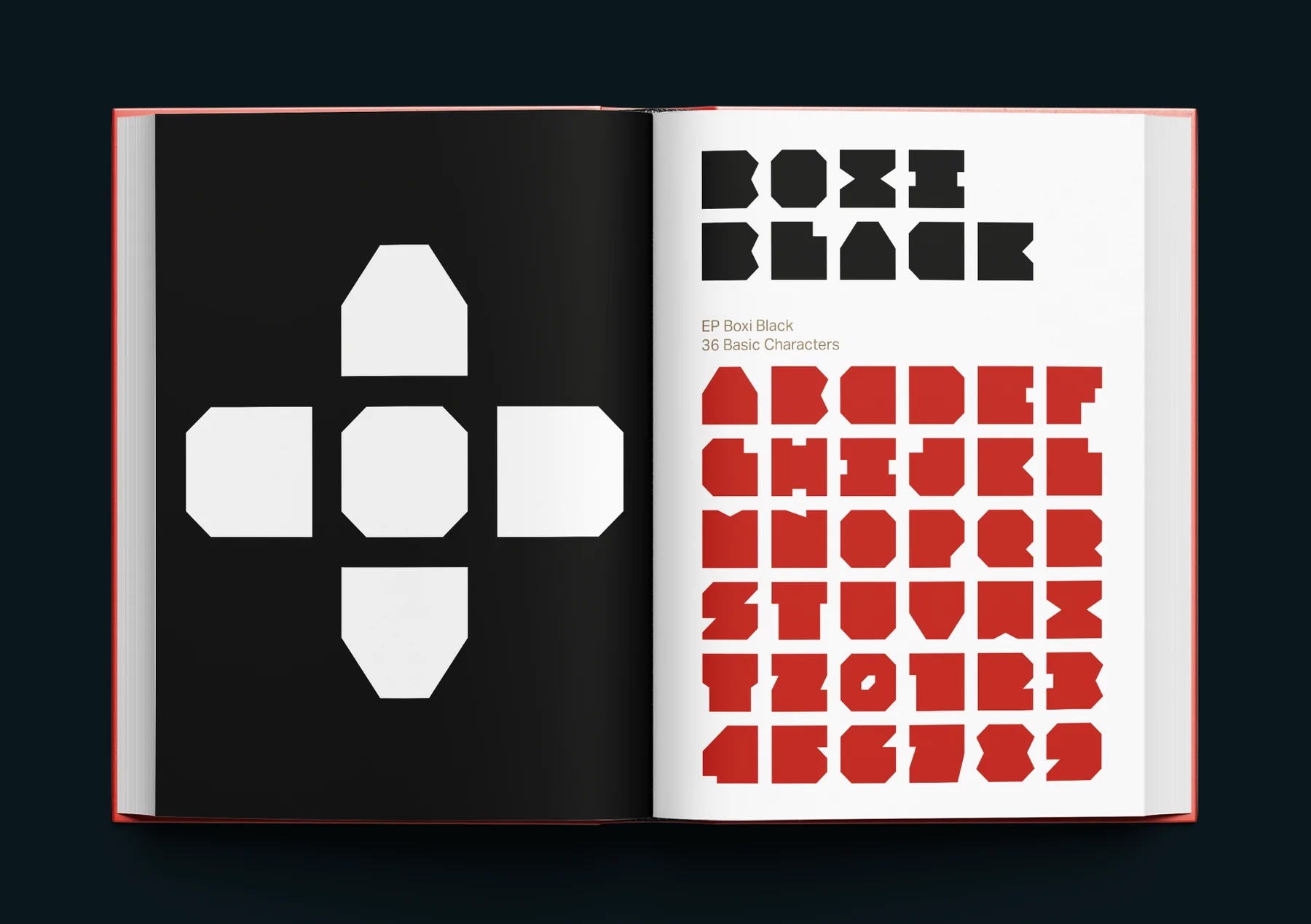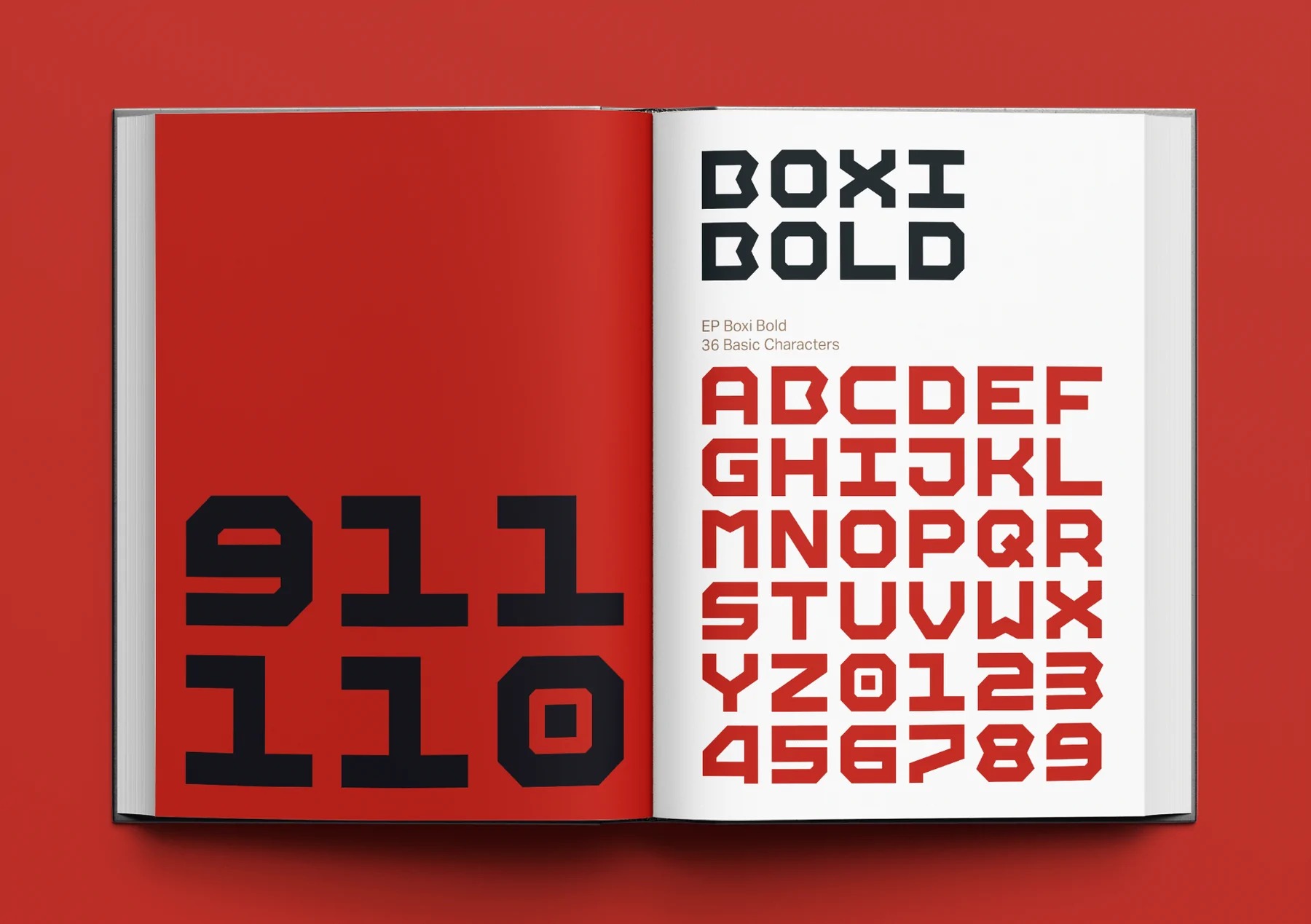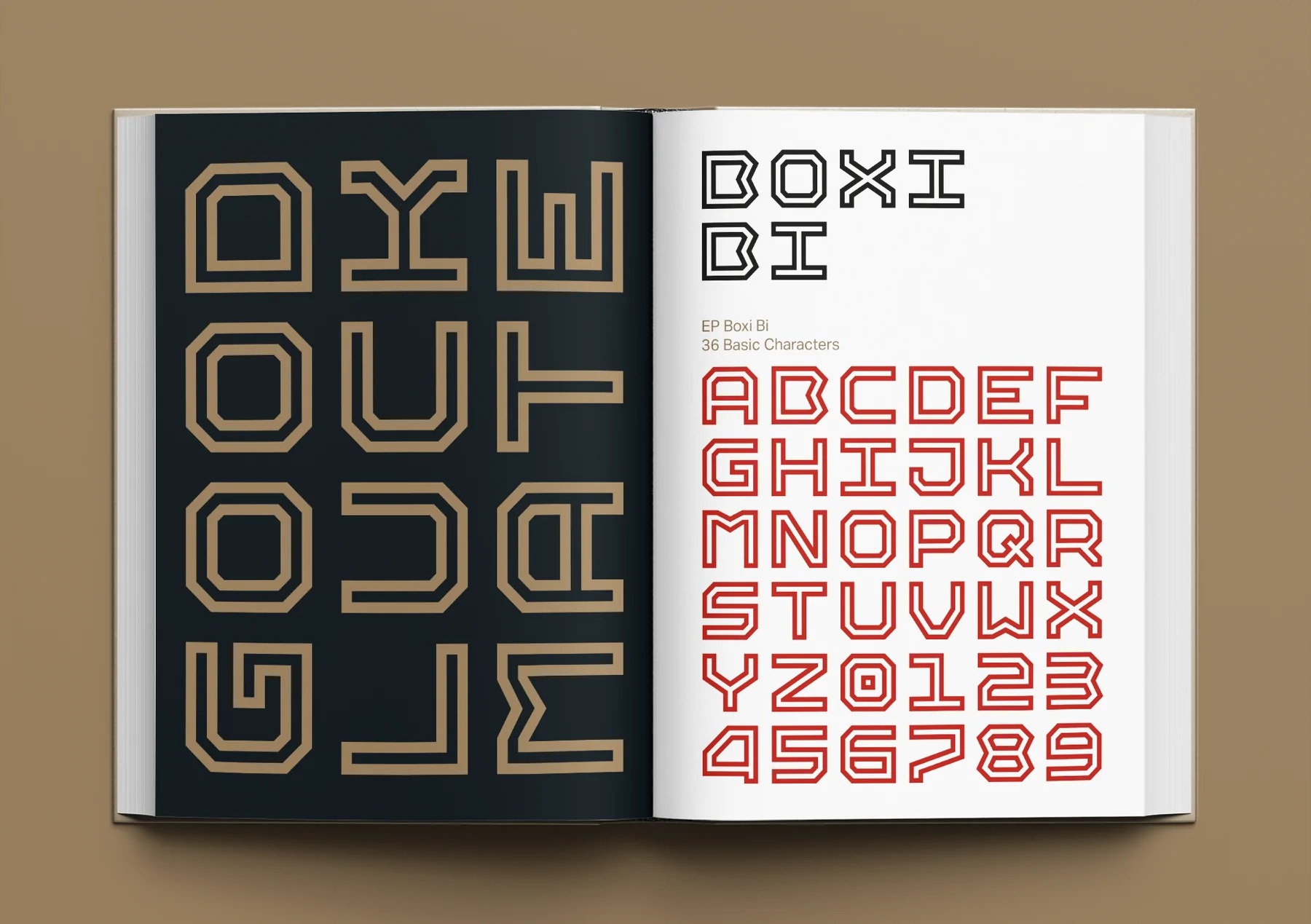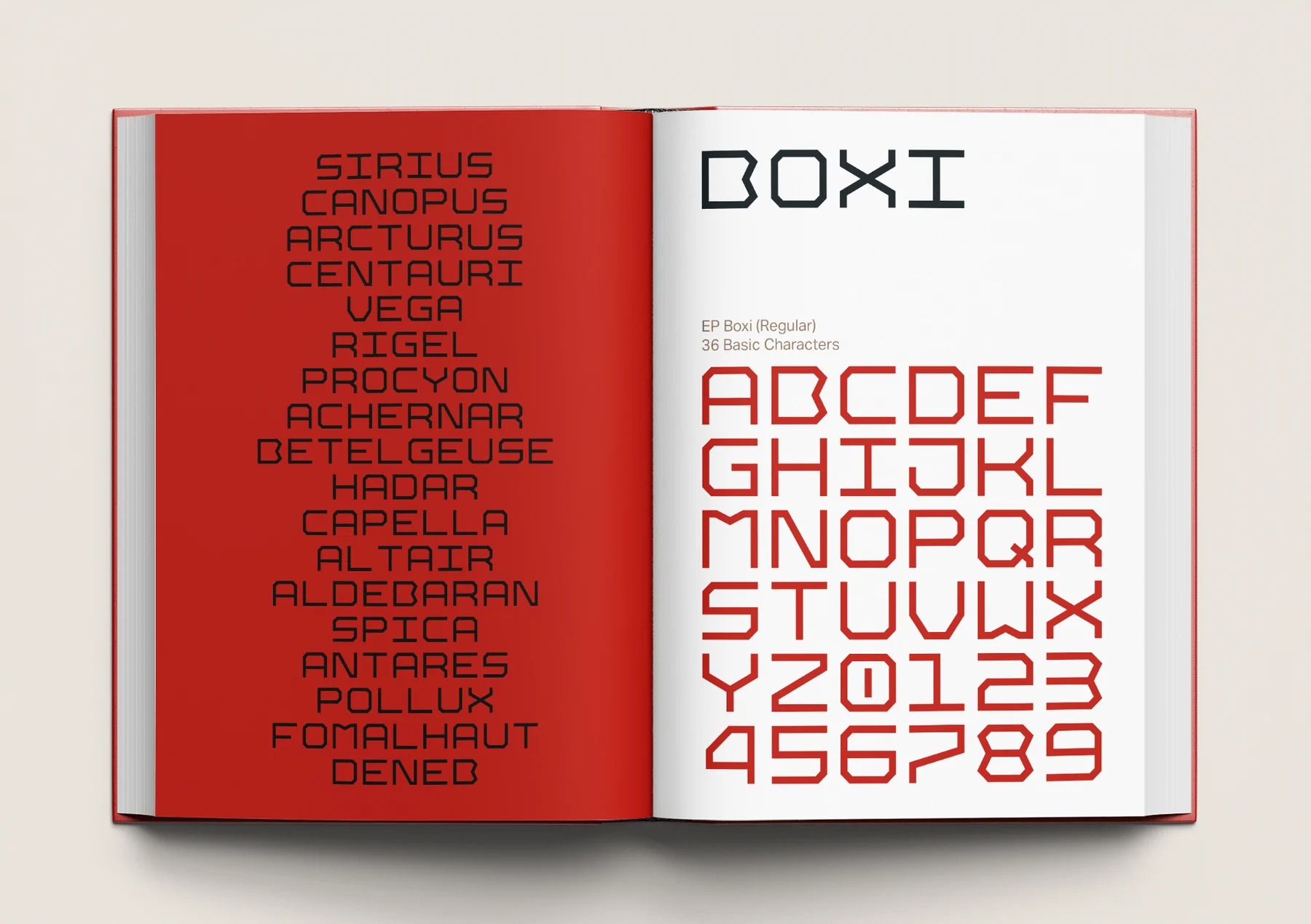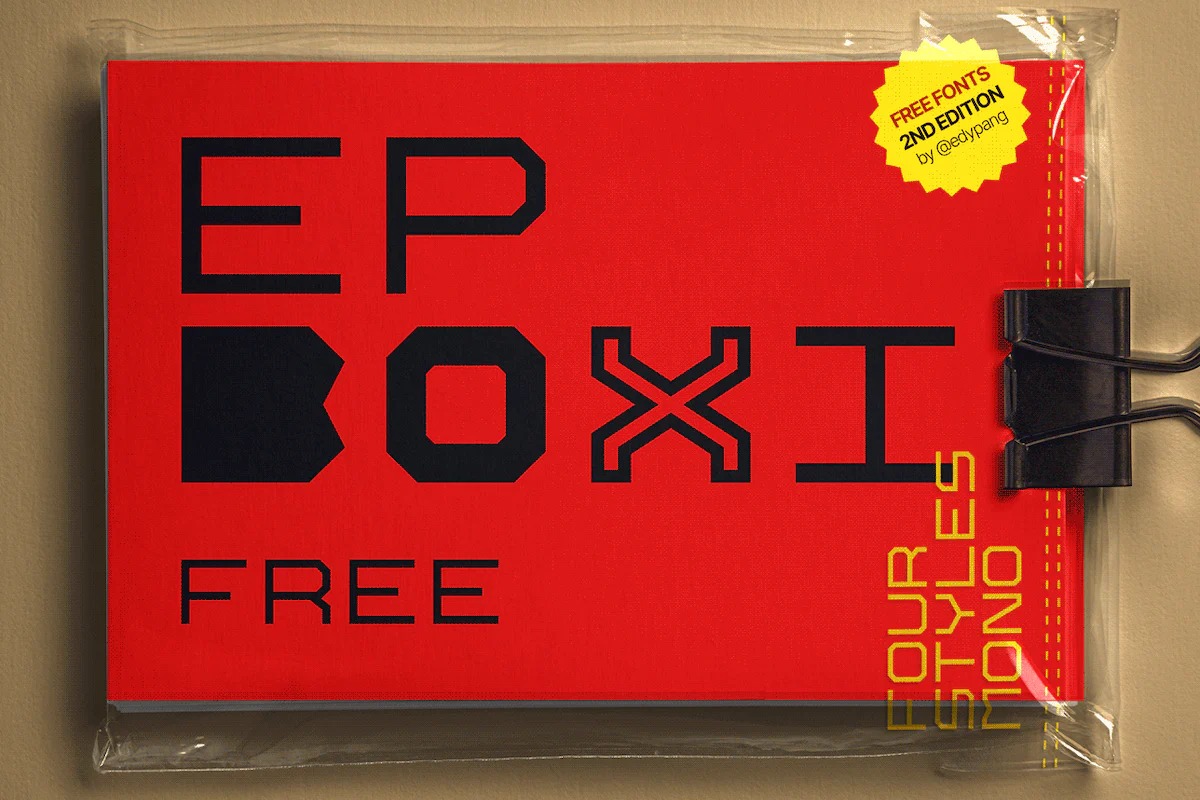
EP Boxi Display Font is a modern and square-based display font. Whatever the topic, this font will be a wonderful asset to your font library, as it has the potential to enhance any creation. It’s created by Edy Pang and inspired by the square shapes. It contains four fonts: Regular, Bi (Stroke), Bold, and Black. You can use them for free in almost any project!